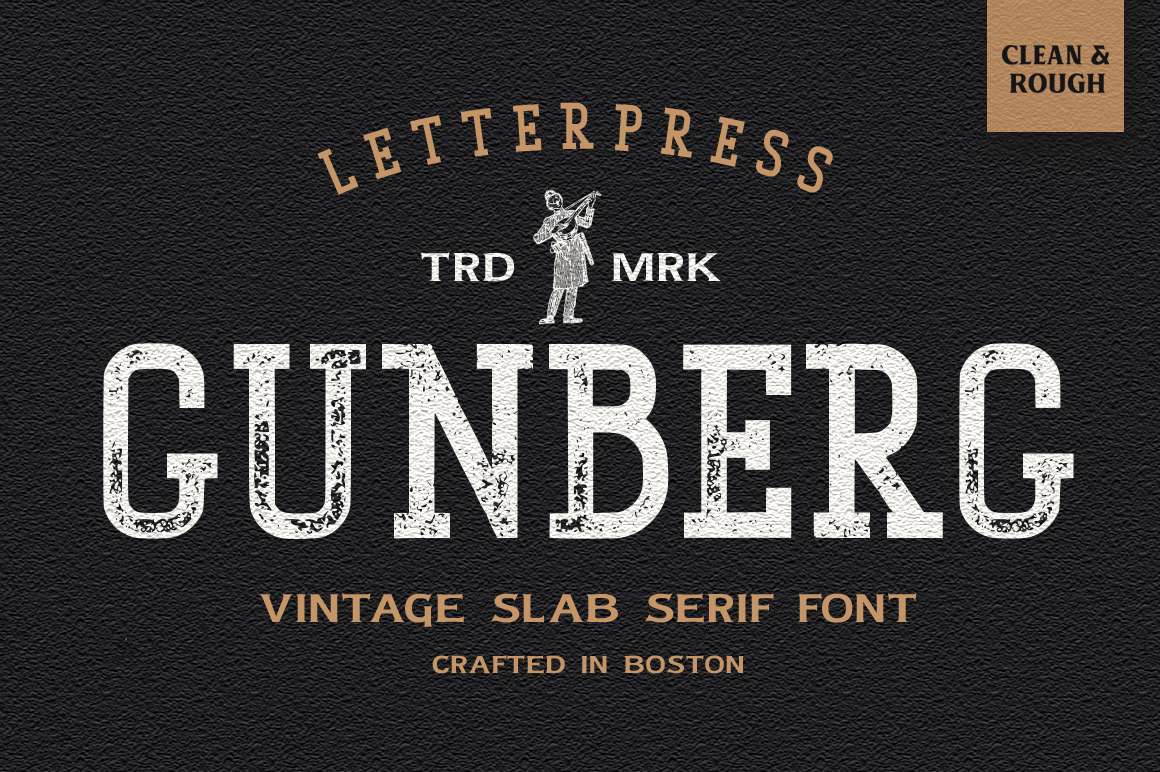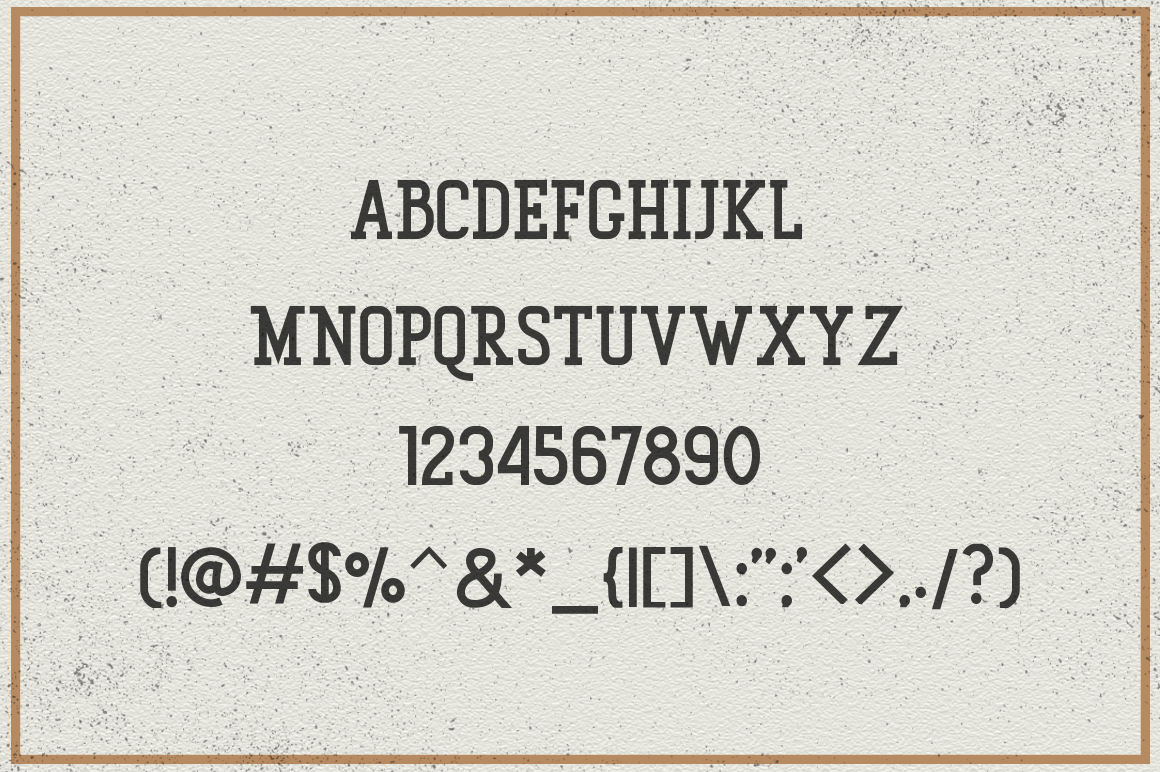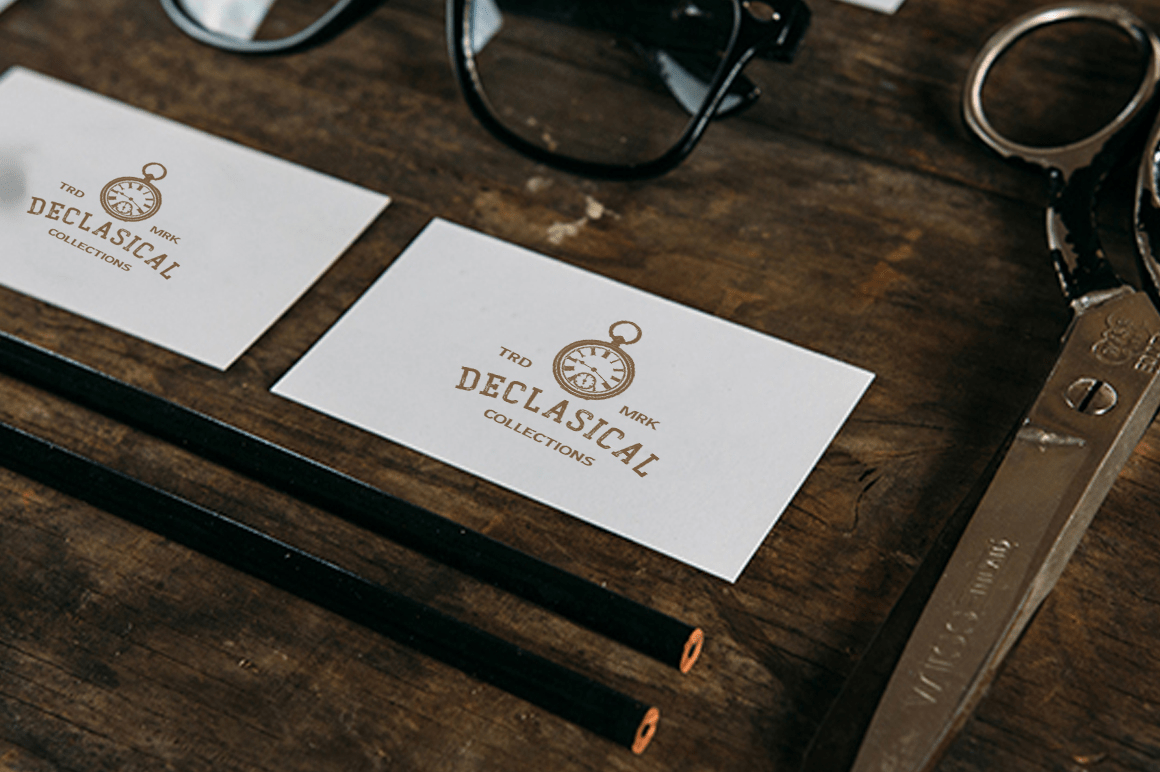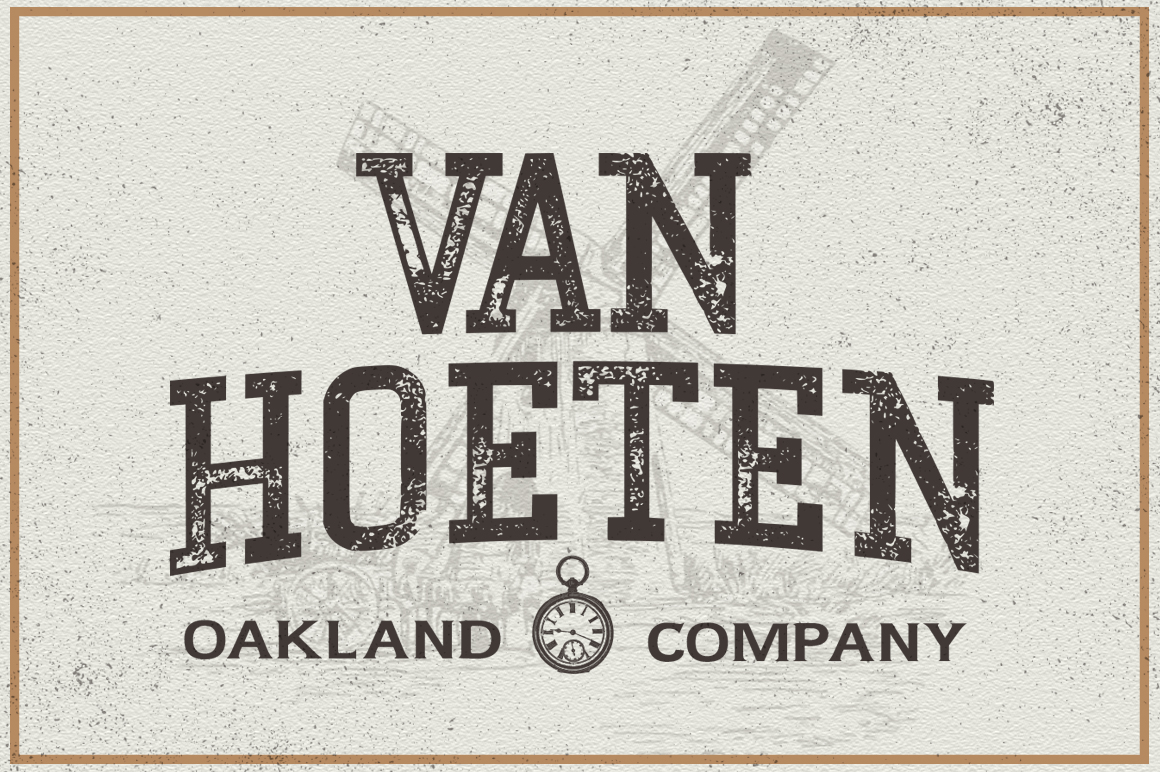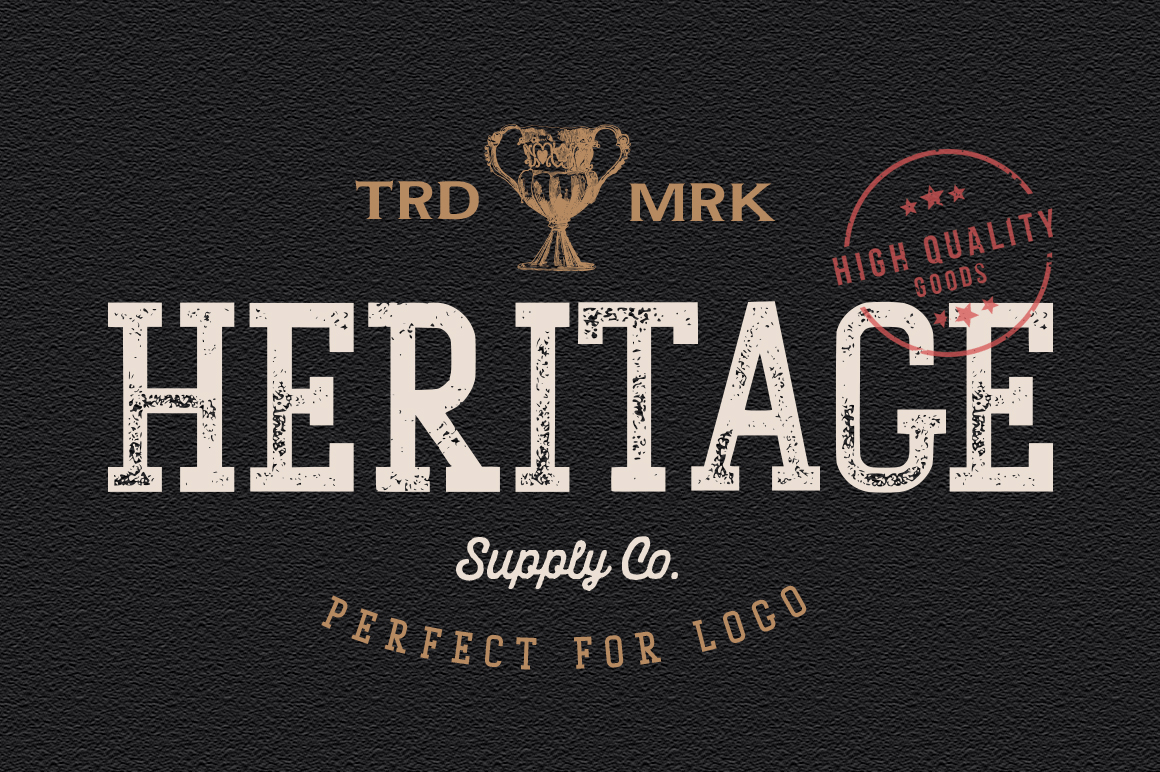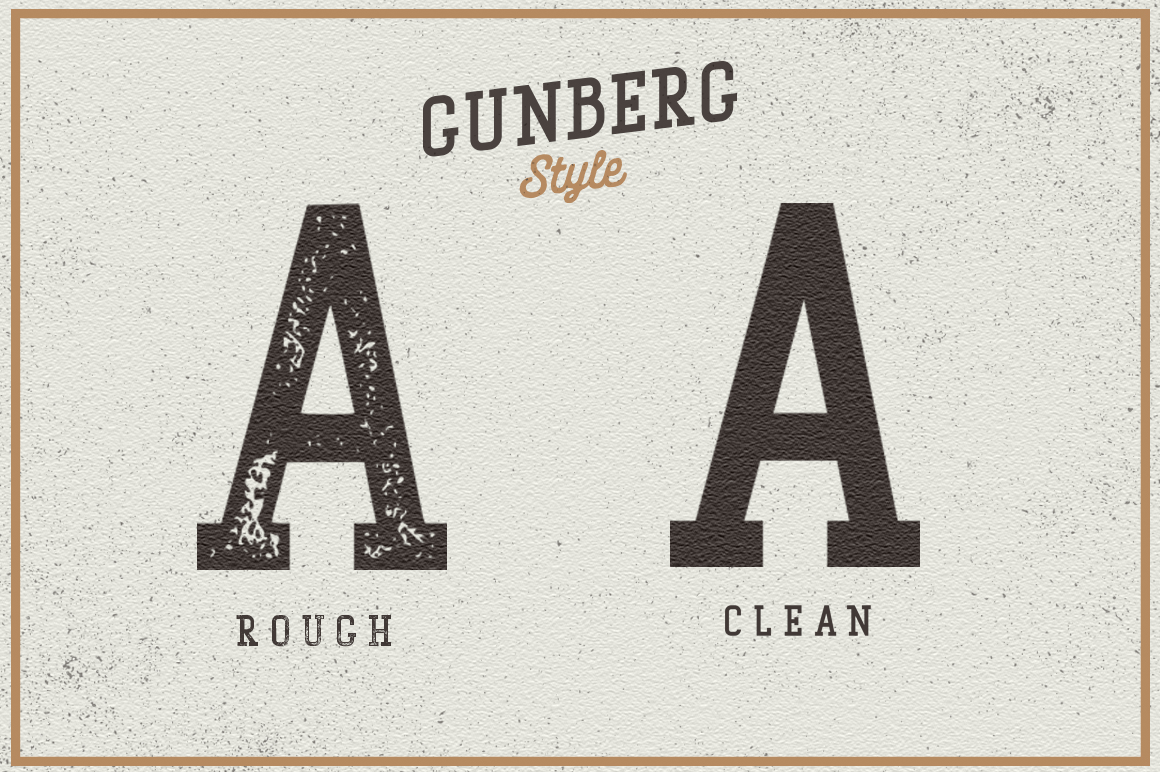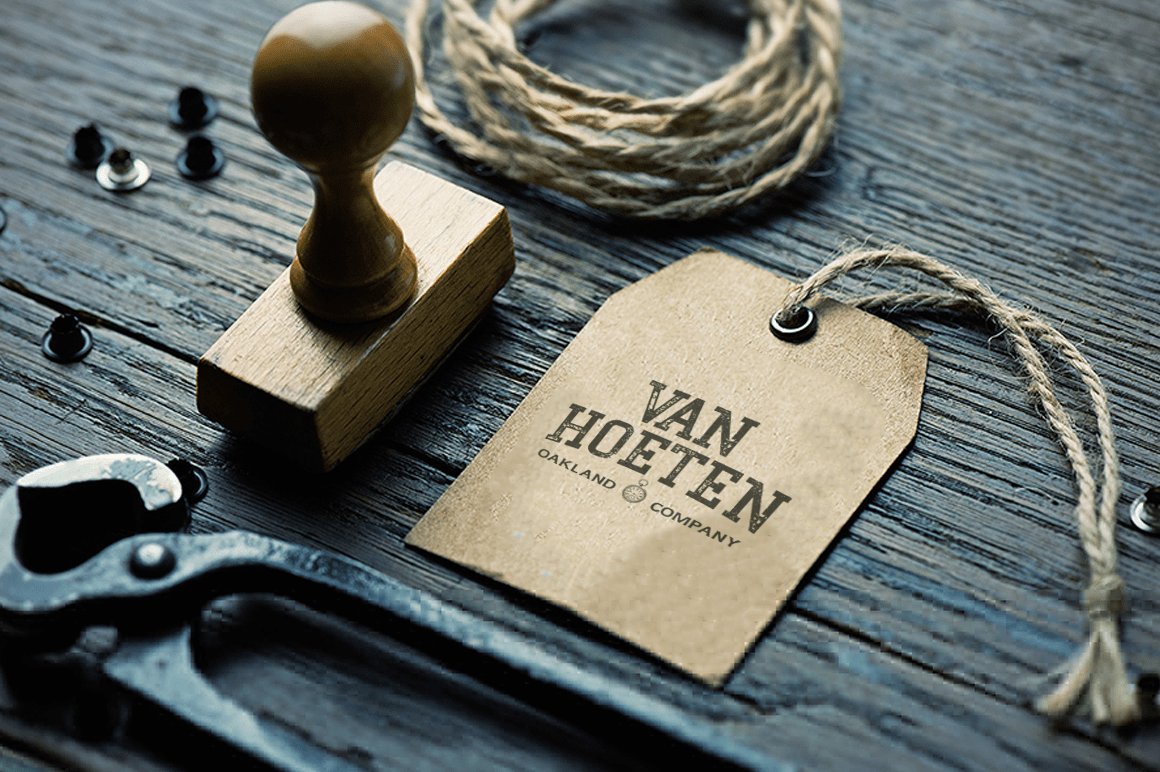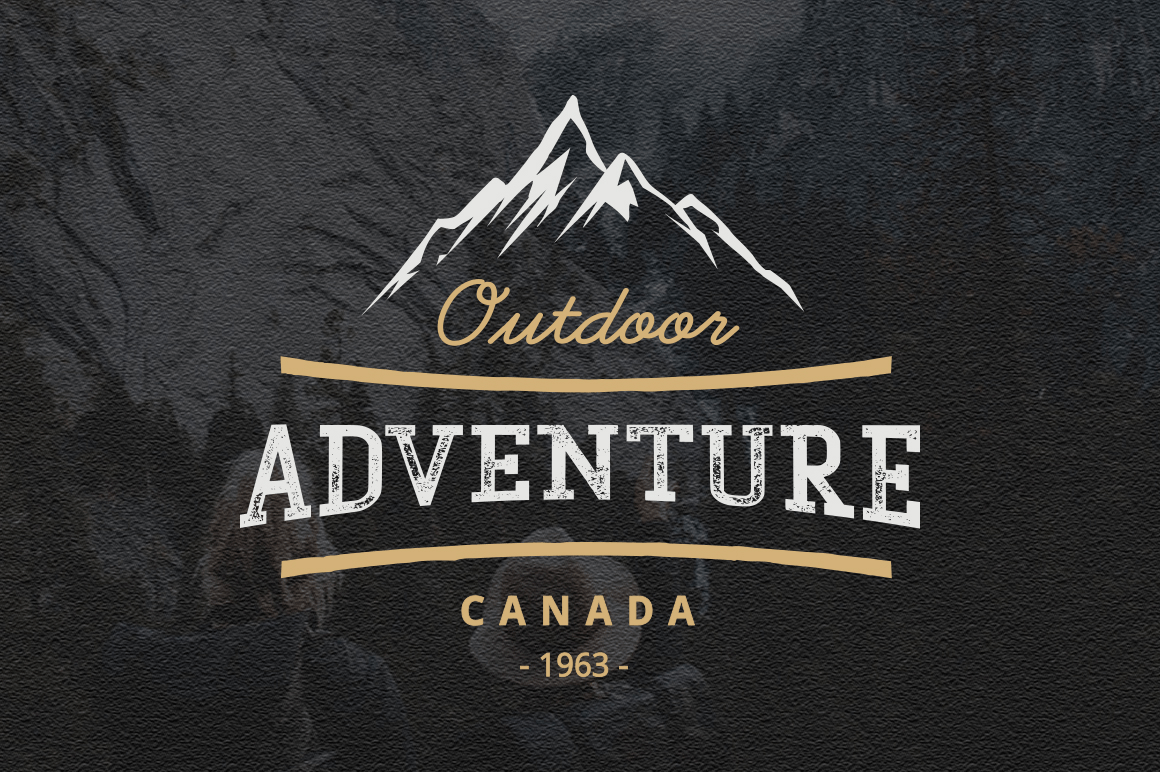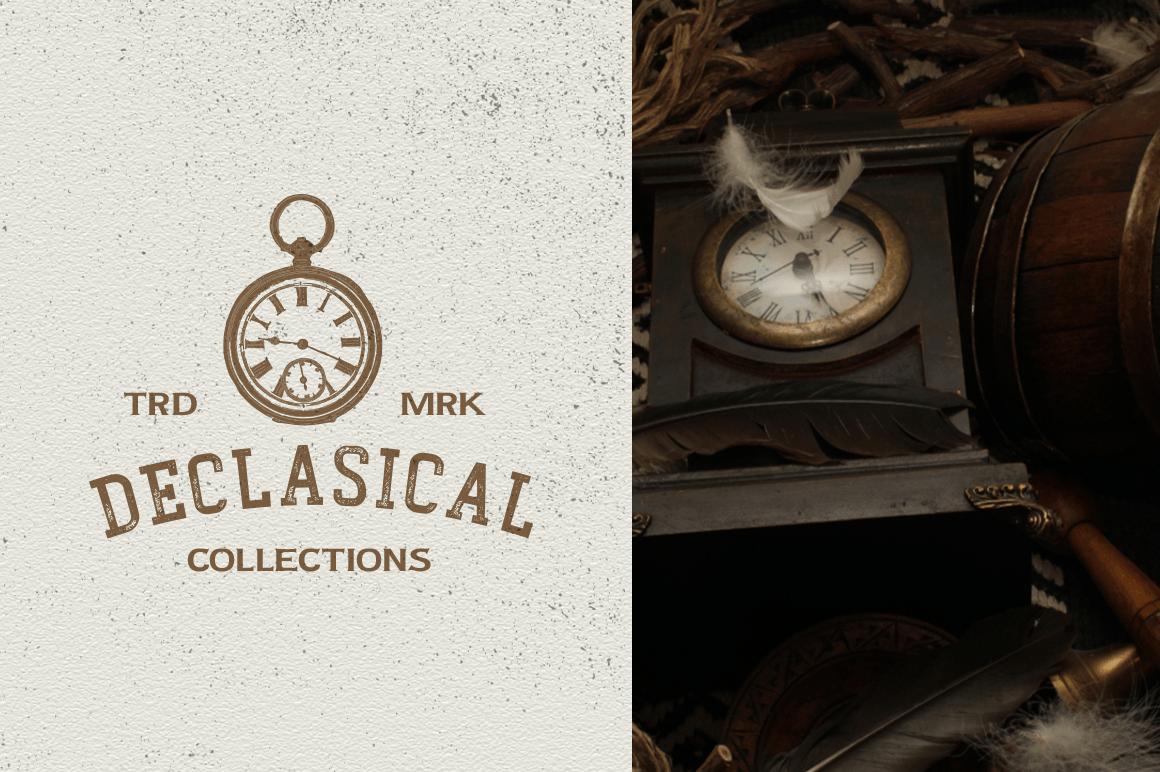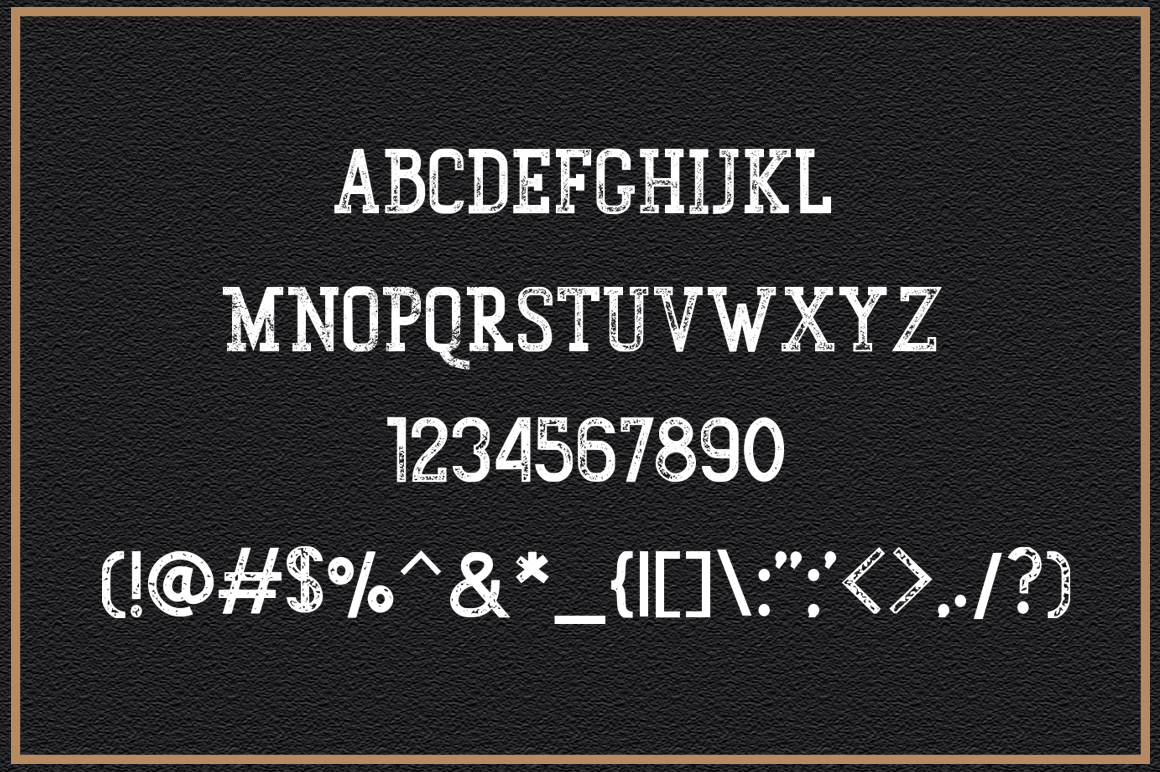
Gunberg
Font Family by Vultype Co
So, this time I made a font called Gunberg Slab Serif that has a vintage theme that you can use for your project.
This font has 2 styles - Clean and Rough - for use according to the type of project. Also, Gunberg font includes western European characters (multilingual support).
All characters have an imperfect shape that gives a natural look in design. It easily cooperates together and is perfect for creating traditional style logos, labels, package design, lettering for t-shirts and much others.